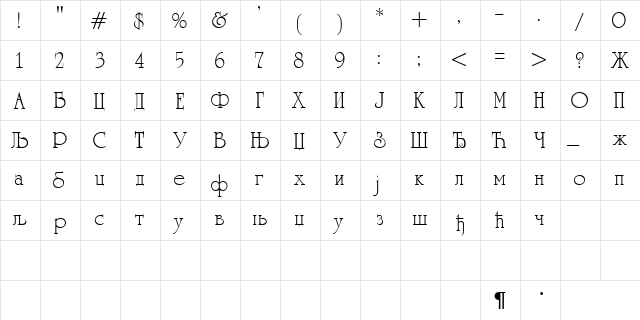
Unicorn Cirilica Regular
Design Context for Unicorn Cirilica Typeface
Unicorn Cirilica takes a measured approach to typography — its balanced proportions and neutral character make it a reliable workhorse for both digital and print work.